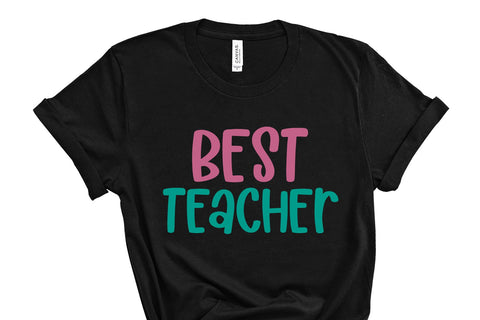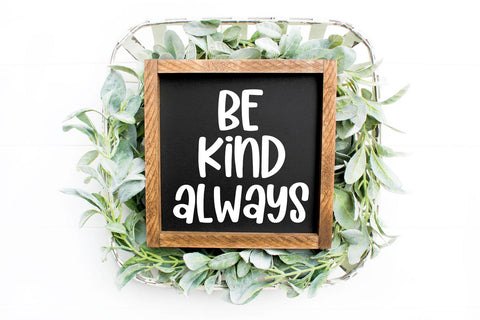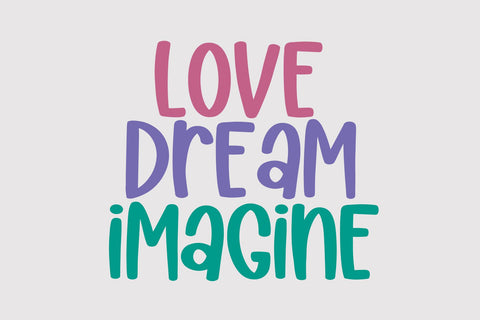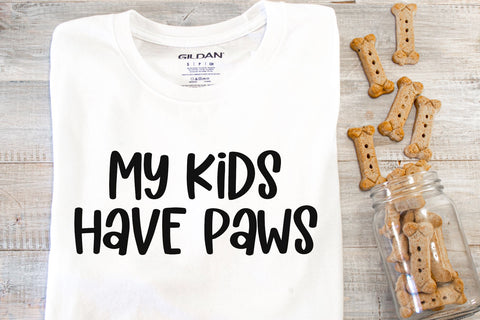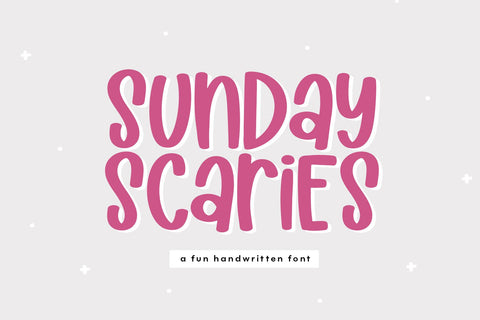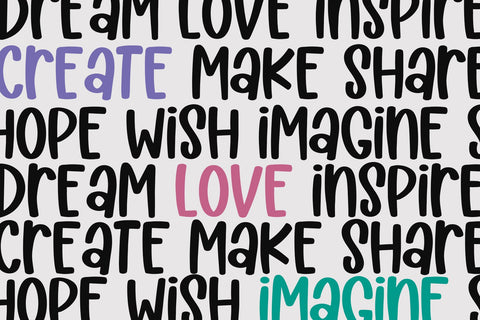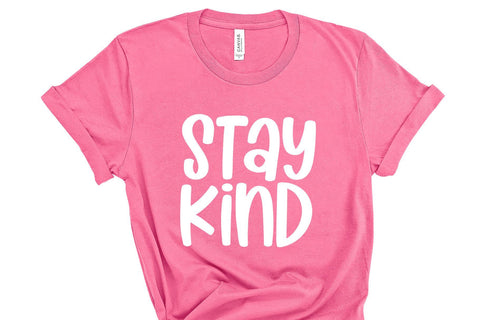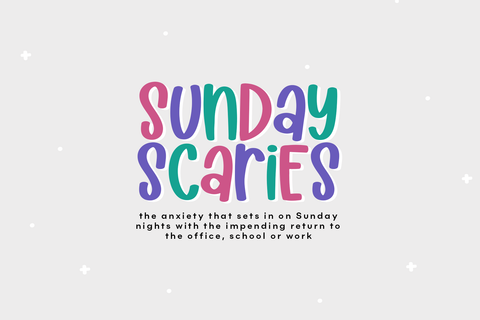
Sunday Scaries - Fun Handwritten Font
Sunday Scaries is a quirky handwritten font!
This is a mixed-case font. The capital/lowercase letters are the same.
This font is perfect for quotes, shirt designs, websites, branding, children's designs, svg designs, blogs, logos, invitations and more!